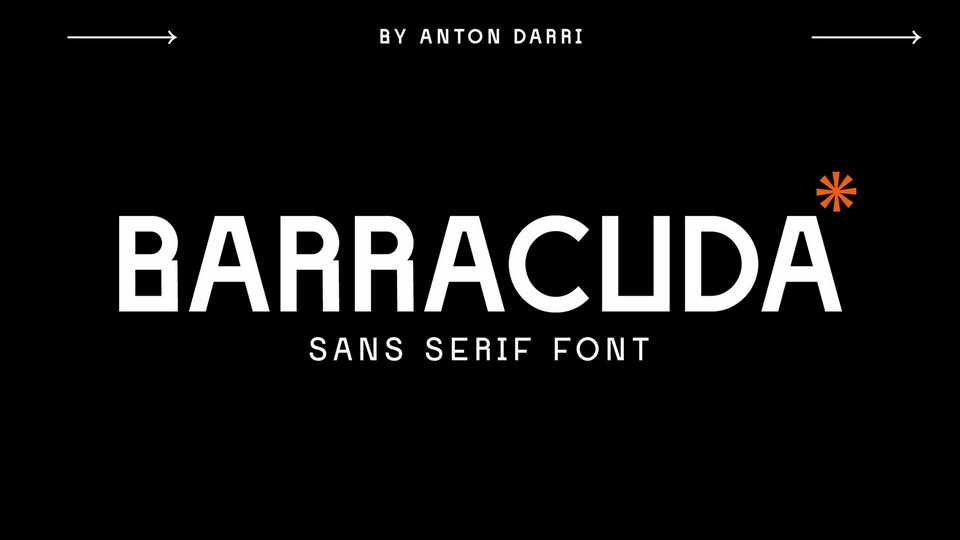
Download Barracuda typeface, a new unusual modern geometric sans serif font family with characters and shapes contrasting in width, as close as possible to the basic geometric shapes.
Designer: Anton Darri Pálmarsson